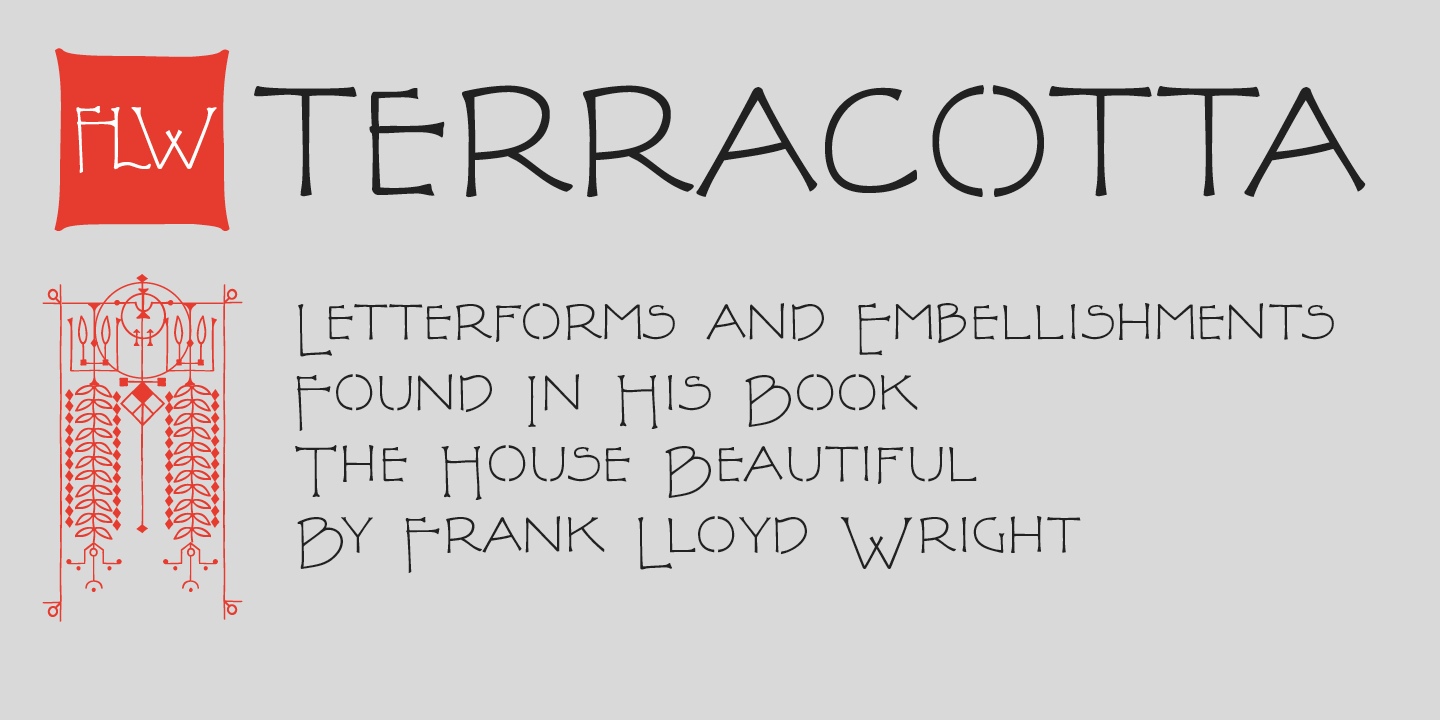
P22 FLW Terracotta Font
P22 FLW Terracotta Font is perfect for architectural firms, historical museums, art deco branding, heritage preservation projects, Frank Lloyd Wright exhibitions, organic architecture marketing, craft pottery studios, artisanal ceramics, cultural institutions, and authentic American design projects.
What makes P22 FLW Terracotta Font exciting is its authentic architectural heritage that captures the essence of Frank Lloyd Wright's organic design philosophy through masterfully crafted letterforms. This distinctive typeface combines Prairie School aesthetics with natural earth tones, creating a personality that communicates craftsmanship, organic beauty, and American architectural innovation. The font's terracotta-inspired character and Wright-influenced design make it perfect for projects celebrating architectural heritage, natural materials, and authentic American craftsmanship.
The P22 FLW Terracotta Font family includes Regular, Bold, Light, Medium, Ornamental, Decorative, Prairie, and Organic variants. Each weight maintains the font's architectural character while providing comprehensive typographic flexibility for heritage brand identity systems and organic design applications across diverse cultural platforms.
Whether you're developing architectural brand identities, creating museum exhibitions, designing heritage marketing materials, or building cultural preservation campaigns, P22 FLW Terracotta Font delivers unmatched authenticity and organic appeal. Its architectural presence makes it perfect for design museums, architectural firms, craft studios, and cultural institutions seeking authentic Wright-inspired representation.
The font's organic proportions and earth-inspired details ensure optimal performance across heritage applications while maintaining its distinctive architectural character. Each letterform has been carefully designed to reflect Wright's philosophy of organic architecture, natural harmony, and authentic American craftsmanship that resonates with audiences appreciating design heritage.
This versatile typeface excels in cultural environments, offering designers the authenticity needed for comprehensive architectural brand communication strategies. The extensive character set includes Wright-inspired alternates, organic ligatures, and Prairie School symbols for heritage market positioning and architectural brand storytelling.
Embrace the power of organic design that celebrates American architectural heritage and natural craftsmanship excellence.